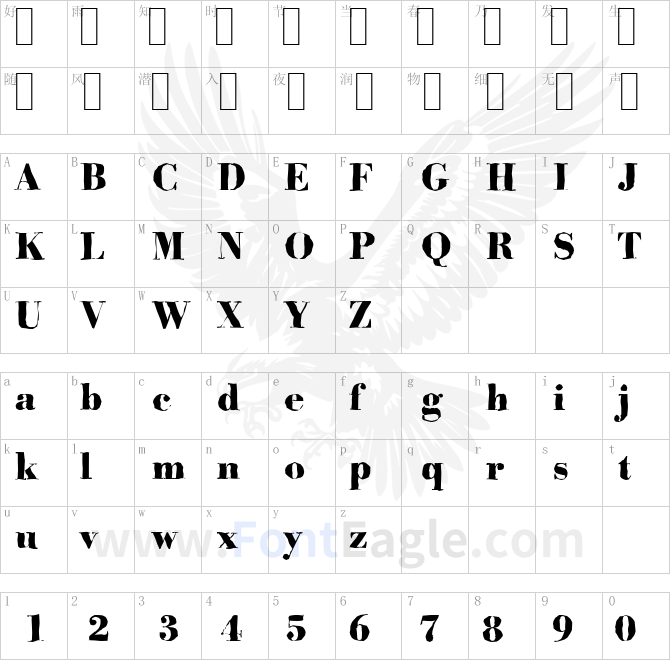
- Font name:BodoniAntique-Xbold
- Font Subfamily ID:SoftMaker Software GmbH BodoniAntique-Xbold-Regular
- Font Full Name:BodoniAntique-Xbold-Regular
- Postscript:BodoniAntiqueXbold